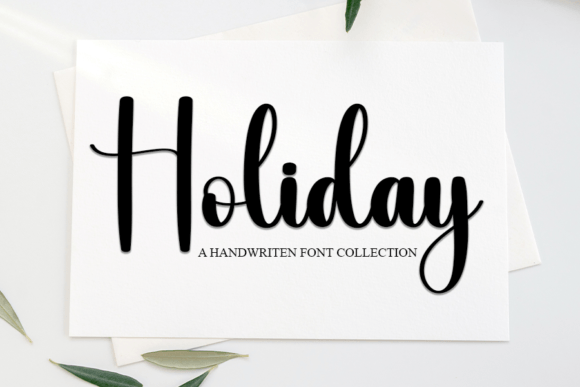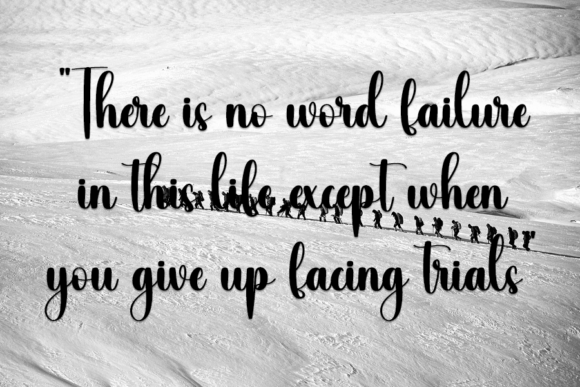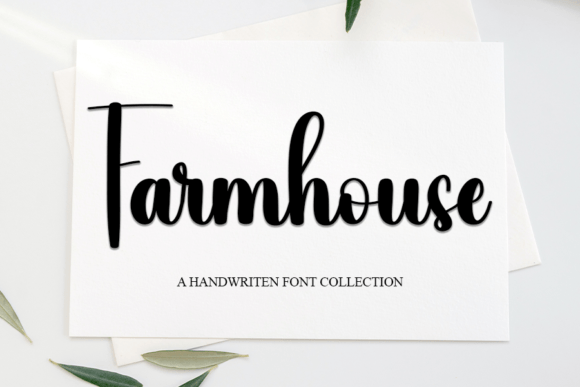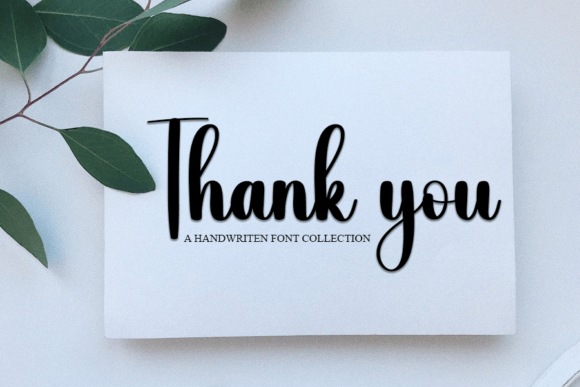
The Perfect Trail for Your Design
Have you ever been out on a hike, surrounded by nature’s beauty, and felt inspired to create something unique? That’s exactly what happened to the designers behind Hiking Font, a delicate handwritten font that captures the essence of the great outdoors. Whether you’re planning a romantic getaway or a fun adventure, this font is the perfect companion for your creative journey.
Hiking Font is more than just a font – it’s a tool for designers to add a personal touch to their projects. With its unique blend of elegance and playfulness, this font can be used to write letters, invitations, food products, titles, and more. Its versatility makes it a valuable asset for designers looking to stand out from the crowd and create truly memorable designs.
Hiking Font Key Features
- Size: The font is designed to be highly legible at various sizes, from 12-point to 48-point, making it suitable for a variety of applications, including signage, labels, and print materials.
- Resolution: Hiking Font is optimized for high-resolution displays, including retina displays and high-DPI screens, ensuring crisp and clear text at all sizes.
- Unique Characteristics: The font features a unique, hand-drawn design with a rugged, outdoor feel, evoking the spirit of hiking and exploration.
- Language Support: Hiking Font includes comprehensive language support, covering Latin-based languages, Cyrillic, and Greek scripts, making it a versatile choice for global applications.
- Font Width and Weight: The font offers a range of widths and weights, from Light to Extra Bold, allowing designers to create visually appealing and effective typography.
Hiking Font Review
I recently had the chance to work with the “Hiking Font” and I’m here to share my honest thoughts about it. ✨ The first thing that caught my attention was its unique and adventurous feel. The font is designed to evoke a sense of the great outdoors and it definitely delivers. The letterforms are bold and rugged, perfect for headings and titles.
The font has a great range of weights, from Light to Bold, making it suitable for a variety of applications. It’s also highly legible, even at small sizes, which is a must for any font. Additionally, the font’s x-height is well-proportioned, making it easy to read.
- Unique and adventurous feel
- Great range of weights
- Highly legible
- Well-proportioned x-height
- May not be suitable for formal or professional applications
- Lacks a italic or oblique version
- Some letterforms may be too bold for certain uses
Overall, I think “Hiking Font” is a great choice for anyone looking for a font with a rugged, adventurous feel. While it may not be suitable for every application, it’s a great addition to any designer’s toolbox. ⚠️ Just be mindful of its limitations and use it wisely.
Hiking Font Practical Application Guide
Tips for Getting the Most Out of Hiking Font
To effectively use the Hiking font, consider the following tips:
- Use it for outdoor-related designs, such as hiking trails, camping gear, or nature-inspired graphics.
- Pair the font with bold, earthy colors to enhance its outdoor feel.
- Experiment with font sizes and styles to create visually appealing headings and body text.
The Hiking font is ideal for:
- Hiking trail maps and signs.
- Camping gear advertisements and product labels.
- Nature-inspired posters and flyers.
- Outdoor-themed social media graphics and promotions.
Alternatives to Hiking Font for Designers
Acadia Font
Acadia Font is a clean, modern sans-serif font ideal for outdoor and adventure-related projects. It’s perfect for use in logos, headings, and body text where a strong, yet elegant feel is required.
Compared to Hiking Font, Acadia Font has a more refined and sophisticated look, making it suitable for a wider range of design applications. While Hiking Font is more rugged and earthy, Acadia Font offers a more polished and professional aesthetic.
Rockwell Font
Rockwell Font is a classic serif font with a strong, sturdy feel. It’s well-suited for use in headings, titles, and body text where a sense of tradition and reliability is desired.
Compared to Hiking Font, Rockwell Font has a more formal and conservative look. While Hiking Font is often used in outdoor and adventure-related projects, Rockwell Font is more commonly used in corporate and institutional designs.